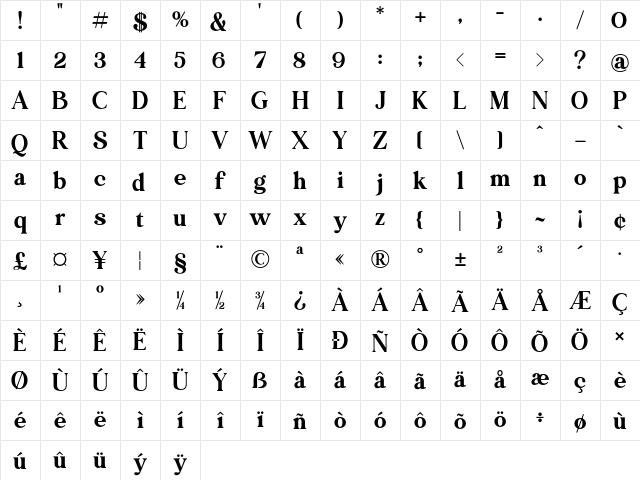
RachelBrown Regular
Foundry: Fargun Studio
Designer: Fajar Gunawan
Design Context for RachelBrown
RachelBrown is a composed and adaptable typeface that performs quietly and consistently across a wide range of design contexts.
Pro Tip: Use RachelBrown in both headline and body roles to test its range before committing to a single application.